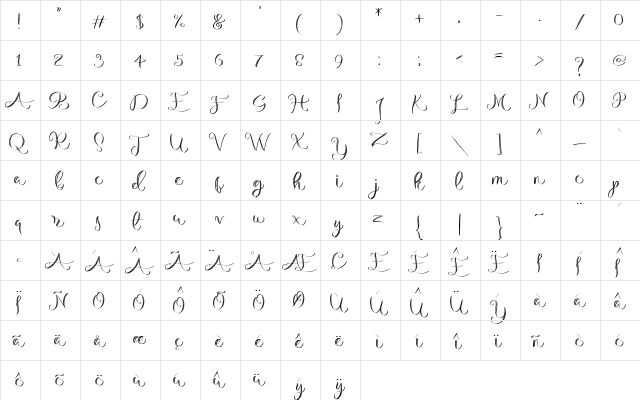
Michelle Handlettering Medium
| Foundry | Debut Studio |
| Designer | Debut Studio |
Design Context for Michelle Handlettering Typeface
Michelle Handlettering flows with the natural rhythm of handwritten lettering, making it ideal for designs that call for warmth and personal expression.
Font Pairing: Combine Michelle Handlettering with a simple geometric sans for maximum contrast — the tension between flowing curves and clean structure is a classic typographic pairing.
Pro Tip: Use Michelle Handlettering for short runs of text — names, titles, or taglines. Extended body copy in script faces tires the eye quickly.